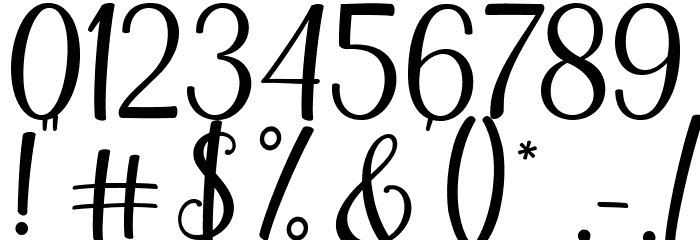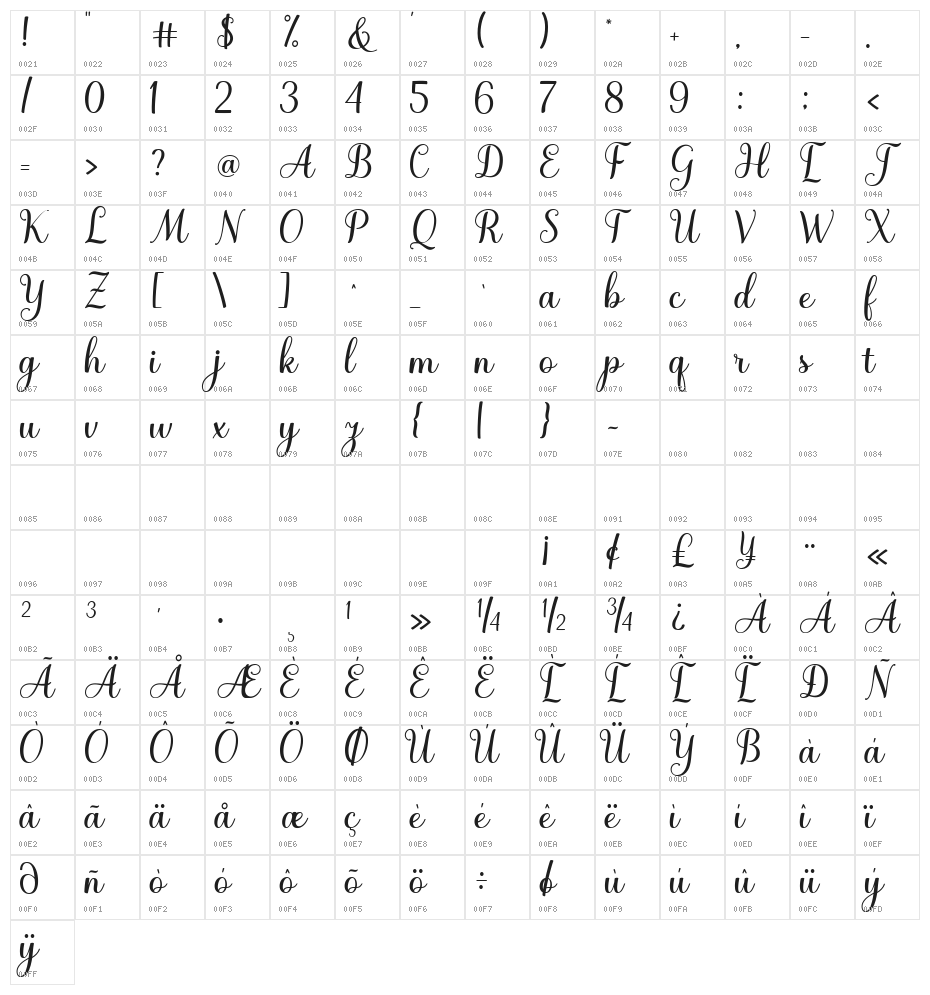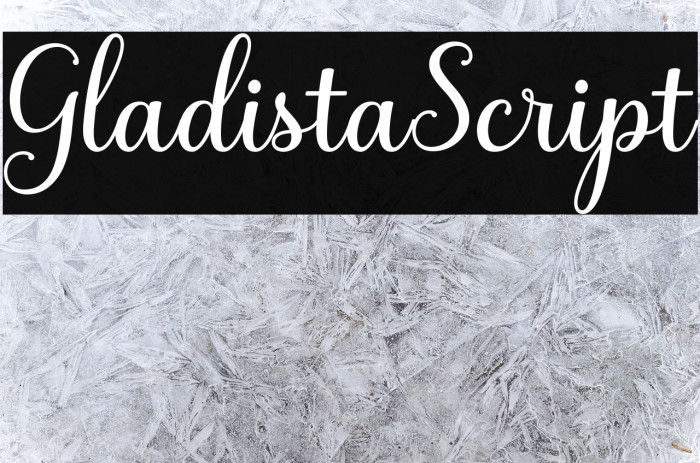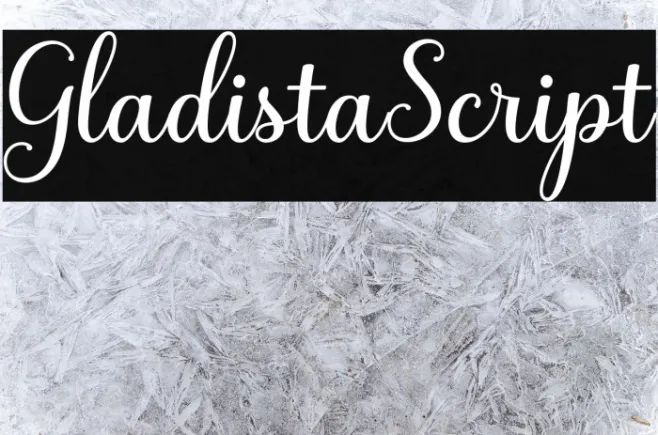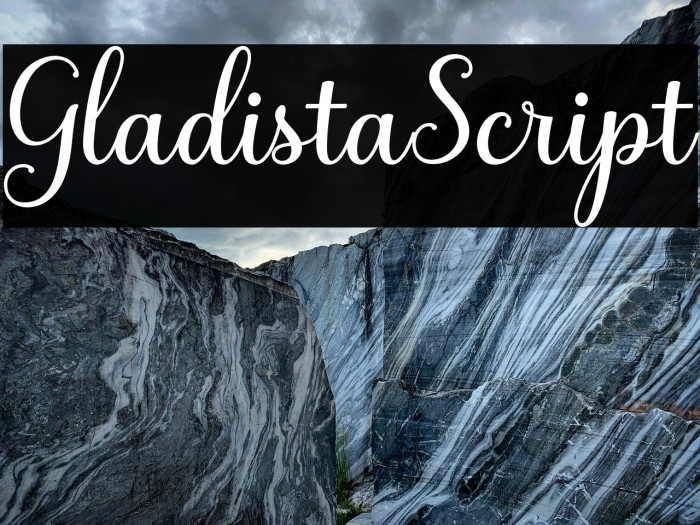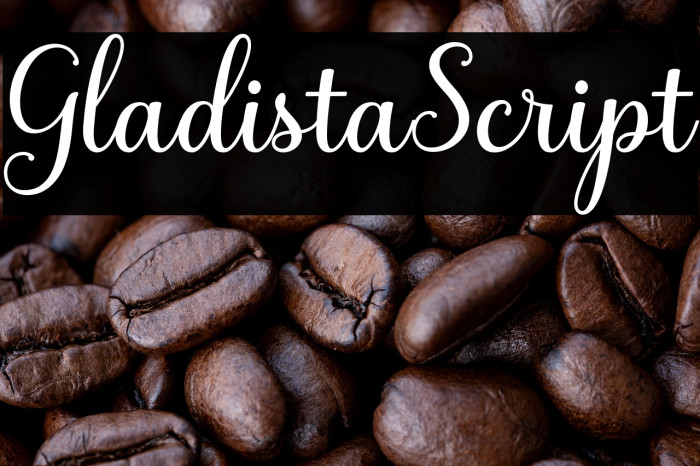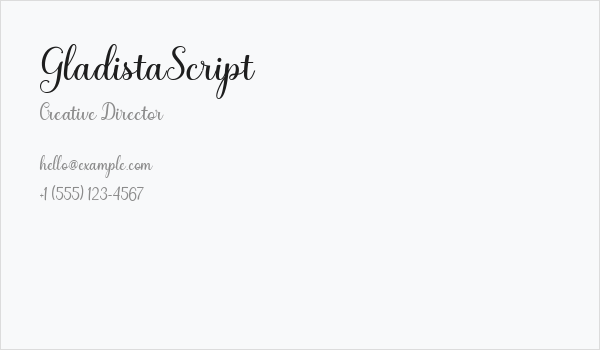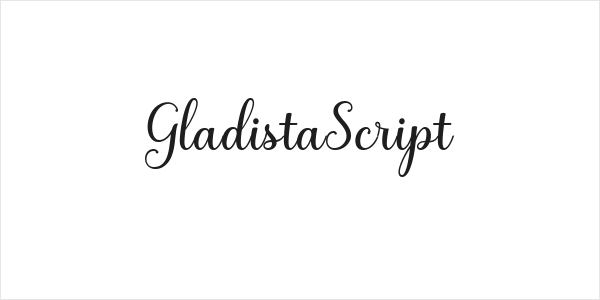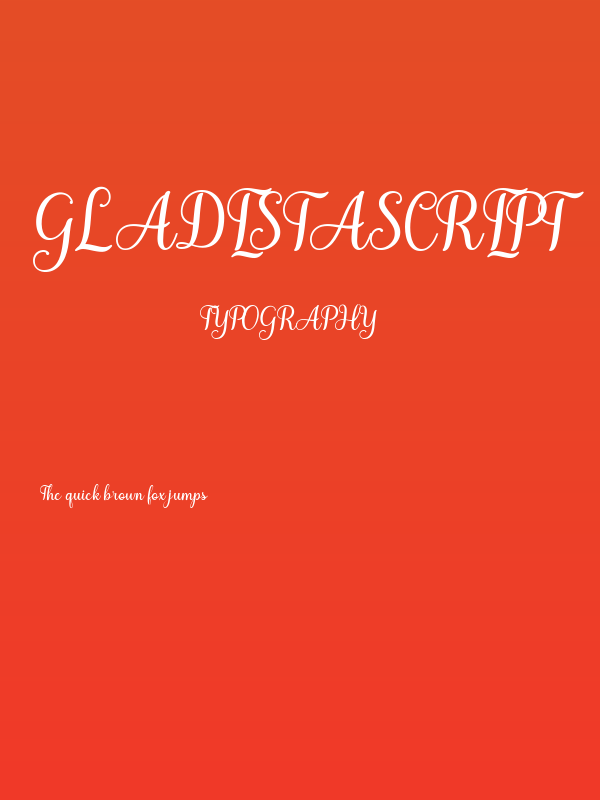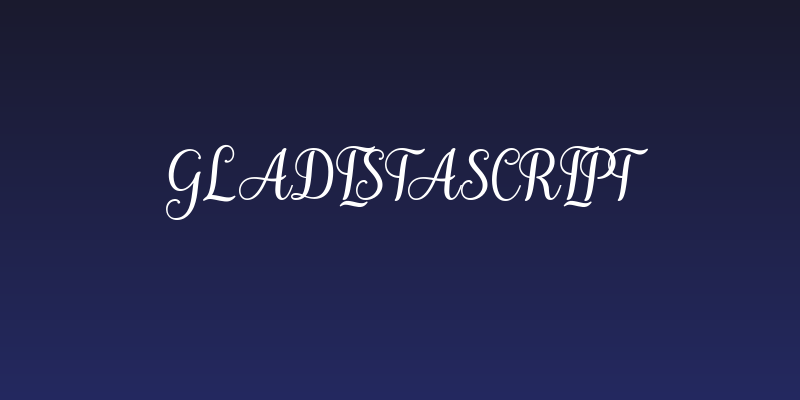
GladistaScript Font
GladistaScript Description
This elegant script font features fluid, cursive strokes that create a sense of movement and grace. The uppercase letters are characterized by their sweeping curves and loops, while the lowercase letters maintain a consistent flow with delicate connections. The numerals are stylishly crafted, complementing the overall aesthetic. Special characters are designed with flair, adding to the font's decorative appeal. The font's design is both sophisticated and approachable, making it suitable for a variety of creative applications.